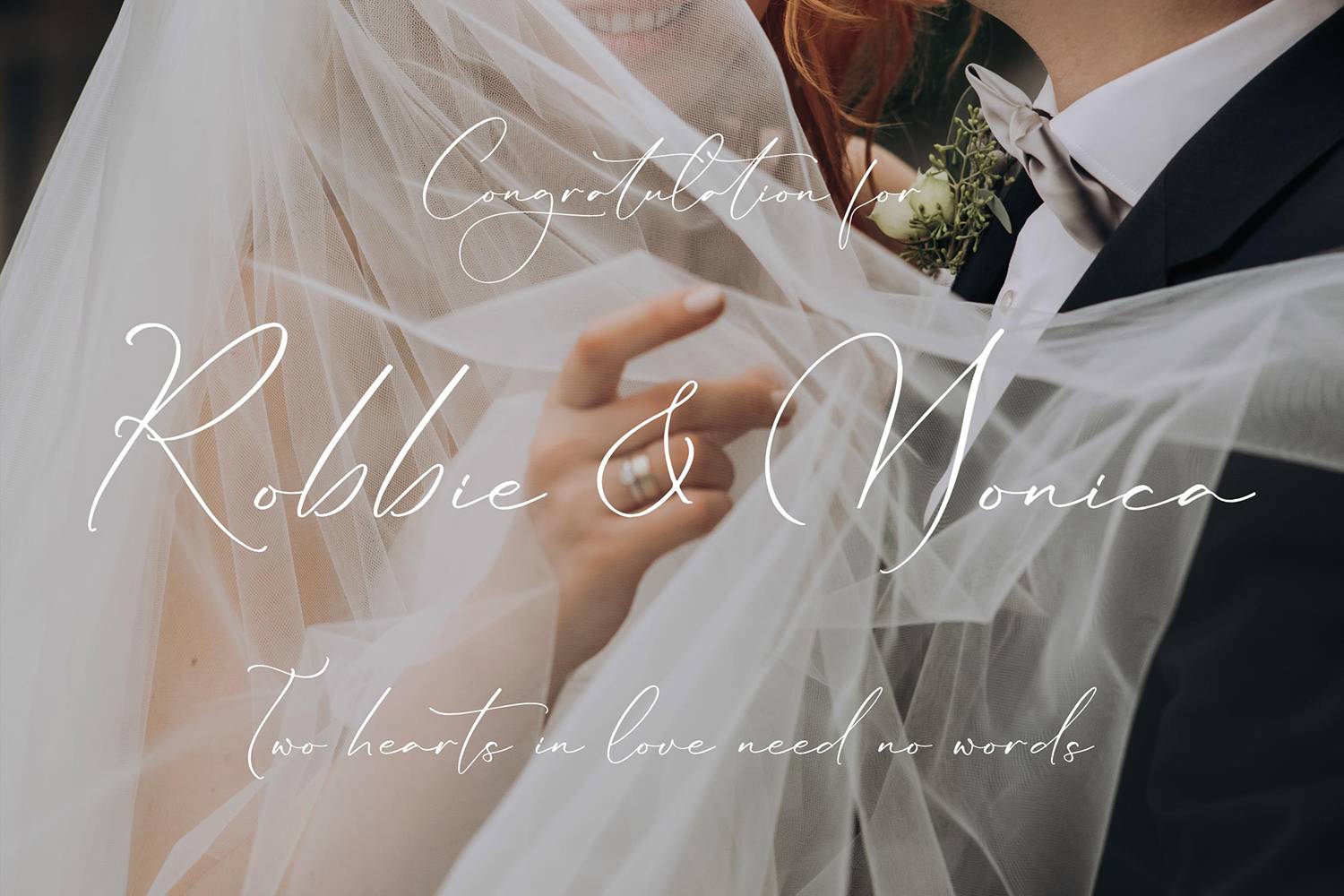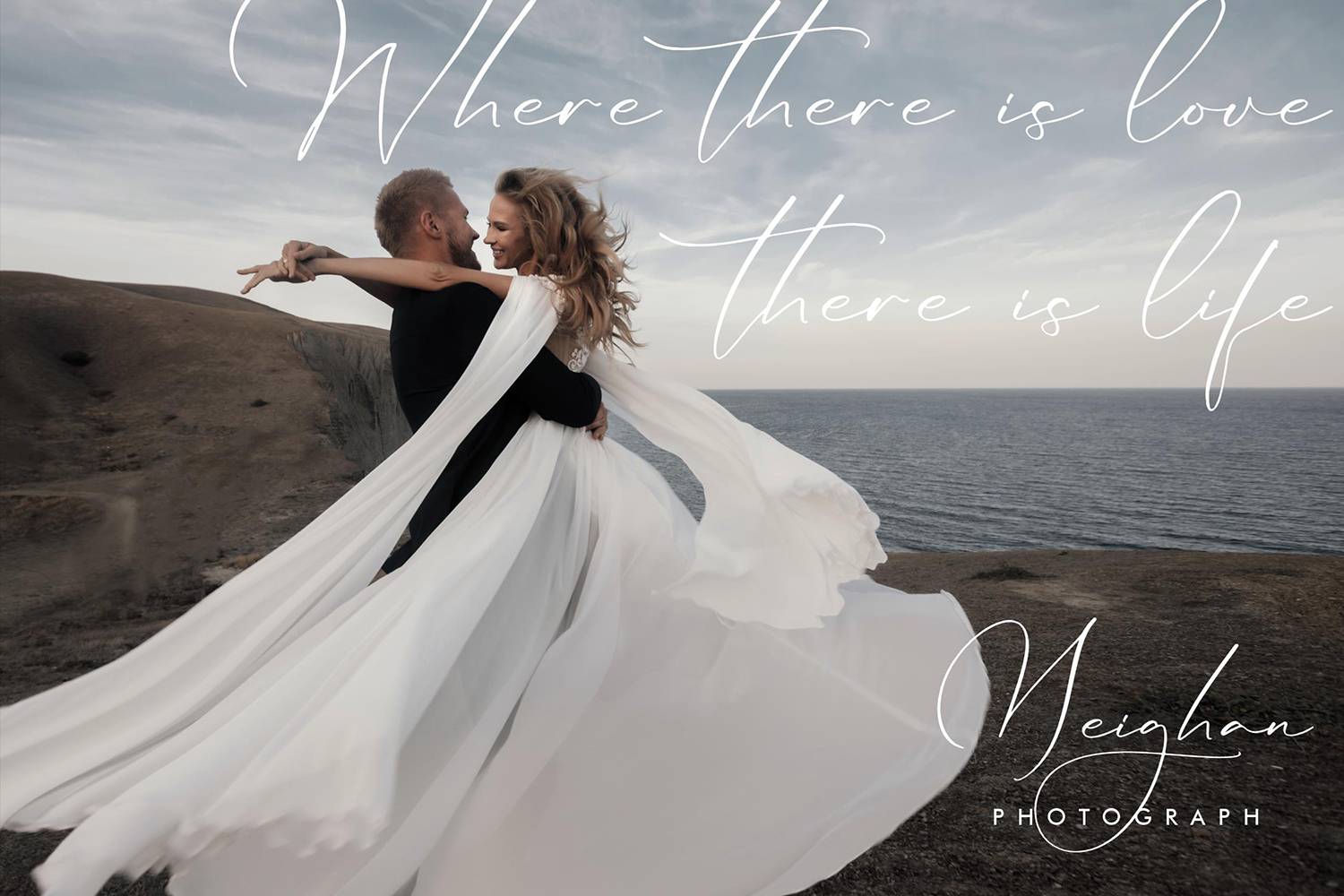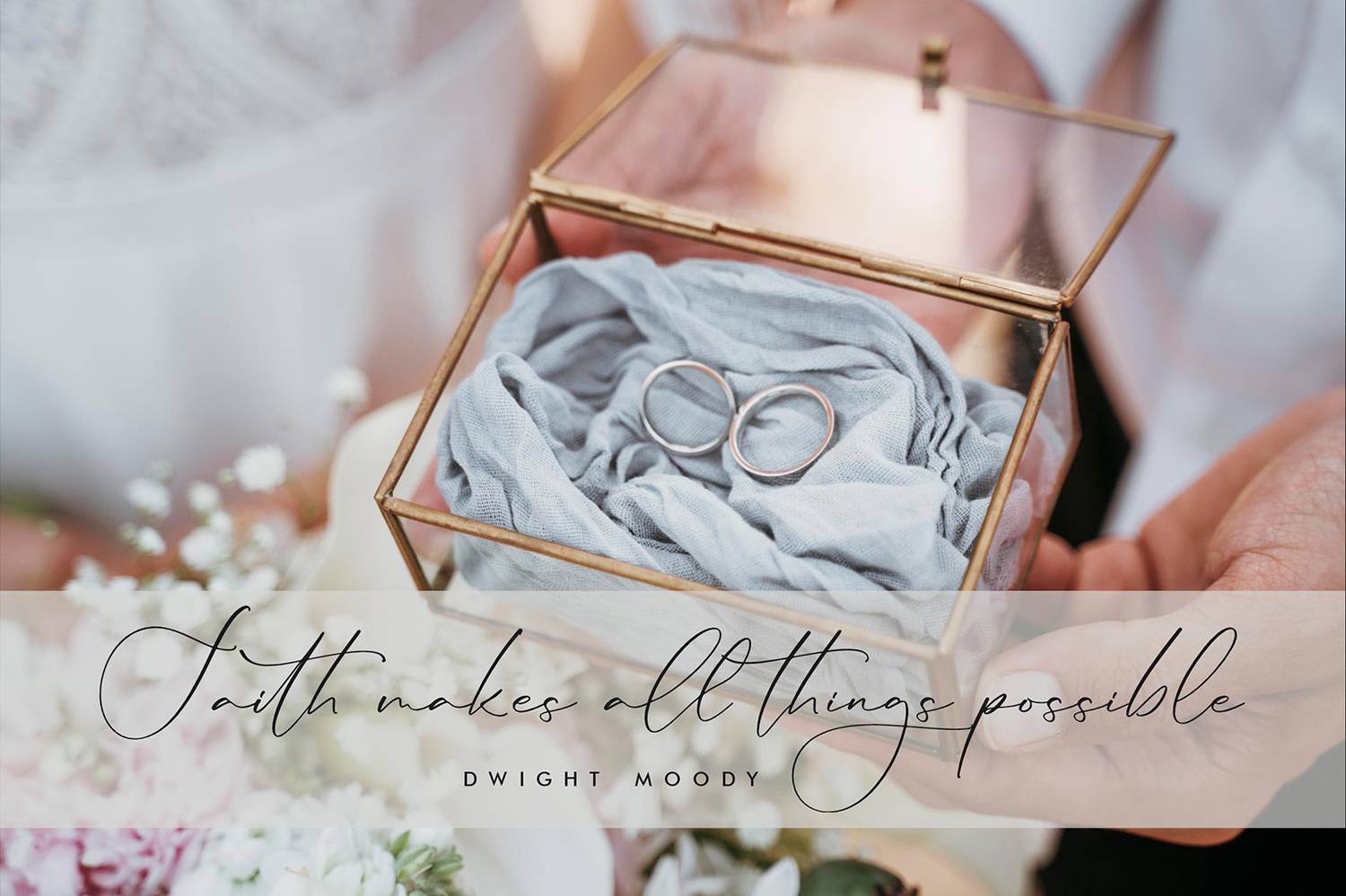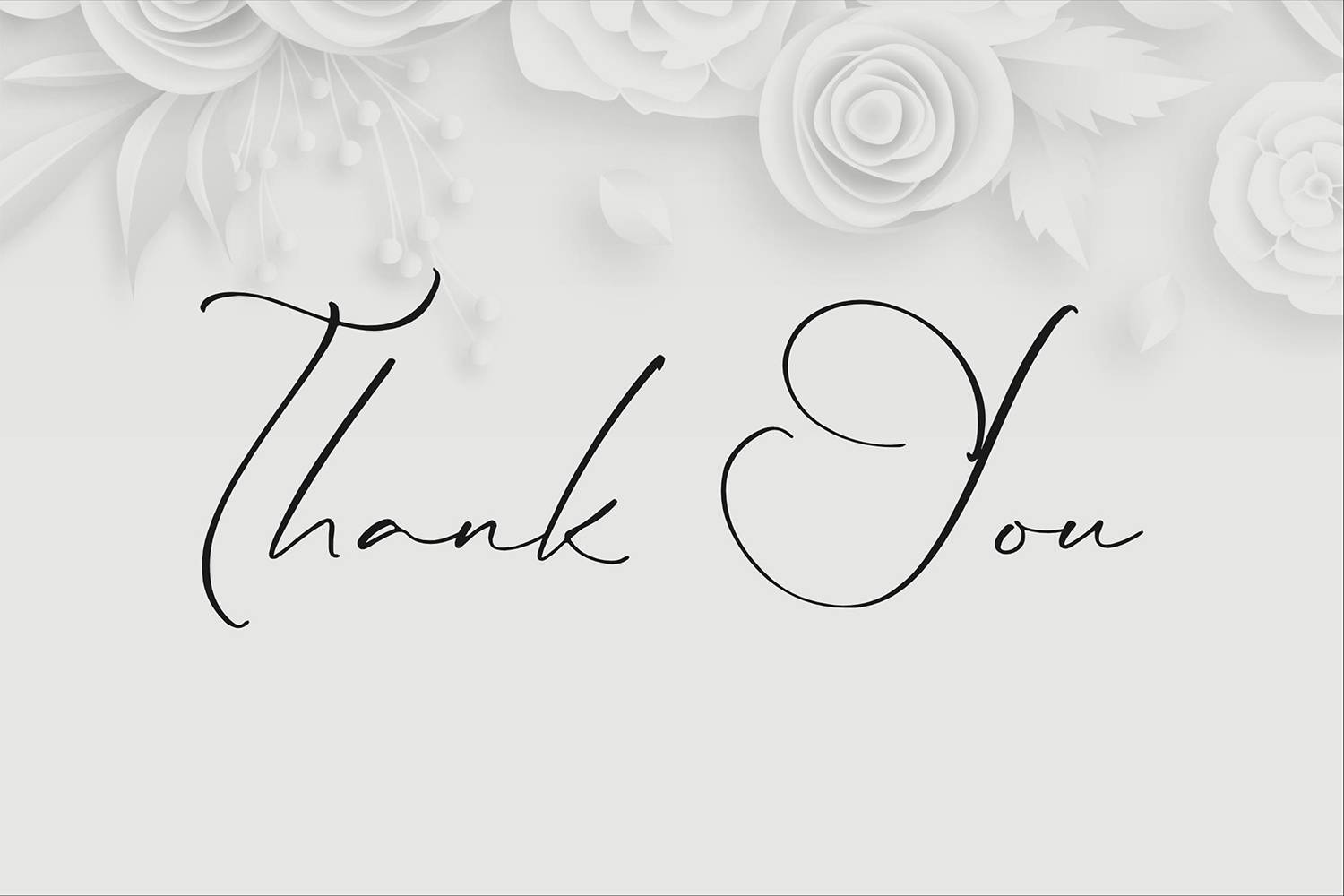
Lillywhite is an elegant script font characterized by its delicate, flowing lines and fine, calligraphic strokes that convey a refined and graceful personality. Its slender weight and sophisticated swashes make it perfect for luxury branding, wedding invitations, and upscale editorial use where a touch of classic beauty and femininity is desired. This font shines best in larger sizes for headers or logos, adding an artisanal, hand-crafted feel to any design.
Lillywhite Font
About Lillywhite Font